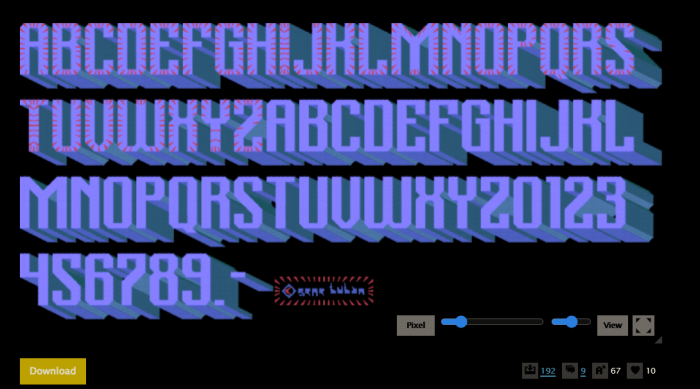
@geneus1 - Another wonderful Marvel movie-themed font, Gene.  Congrats!  :^)
Excellent 3D work, it really pops off the screen.
I'm with the boys, master! And nice sample too.
Congratulations! FontStruct Staff have deemed your FontStruction worthy of special mention. “G1 MadameWebbed” is now a Top Pick.
My congrats on the TP!
Cooooooooool!